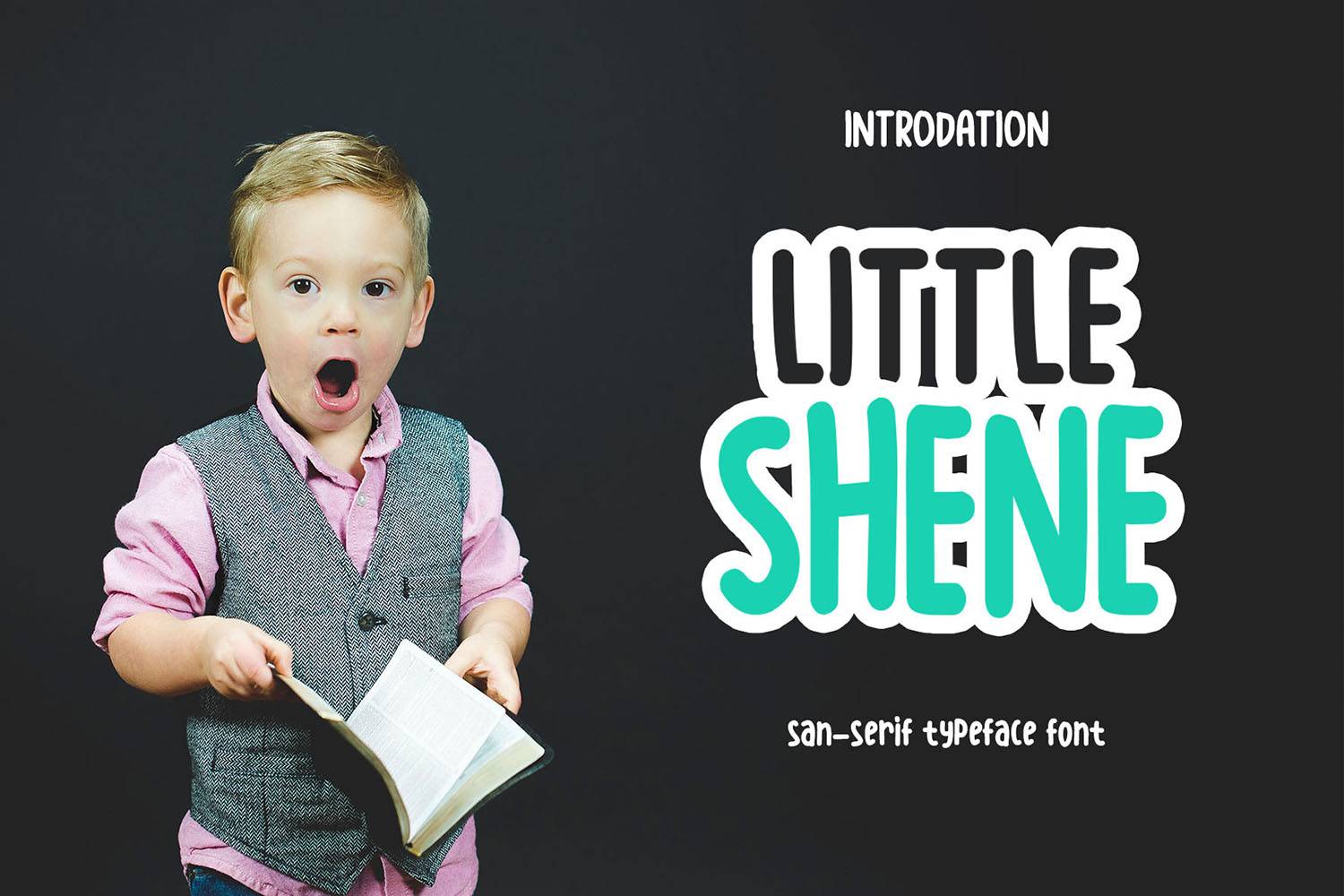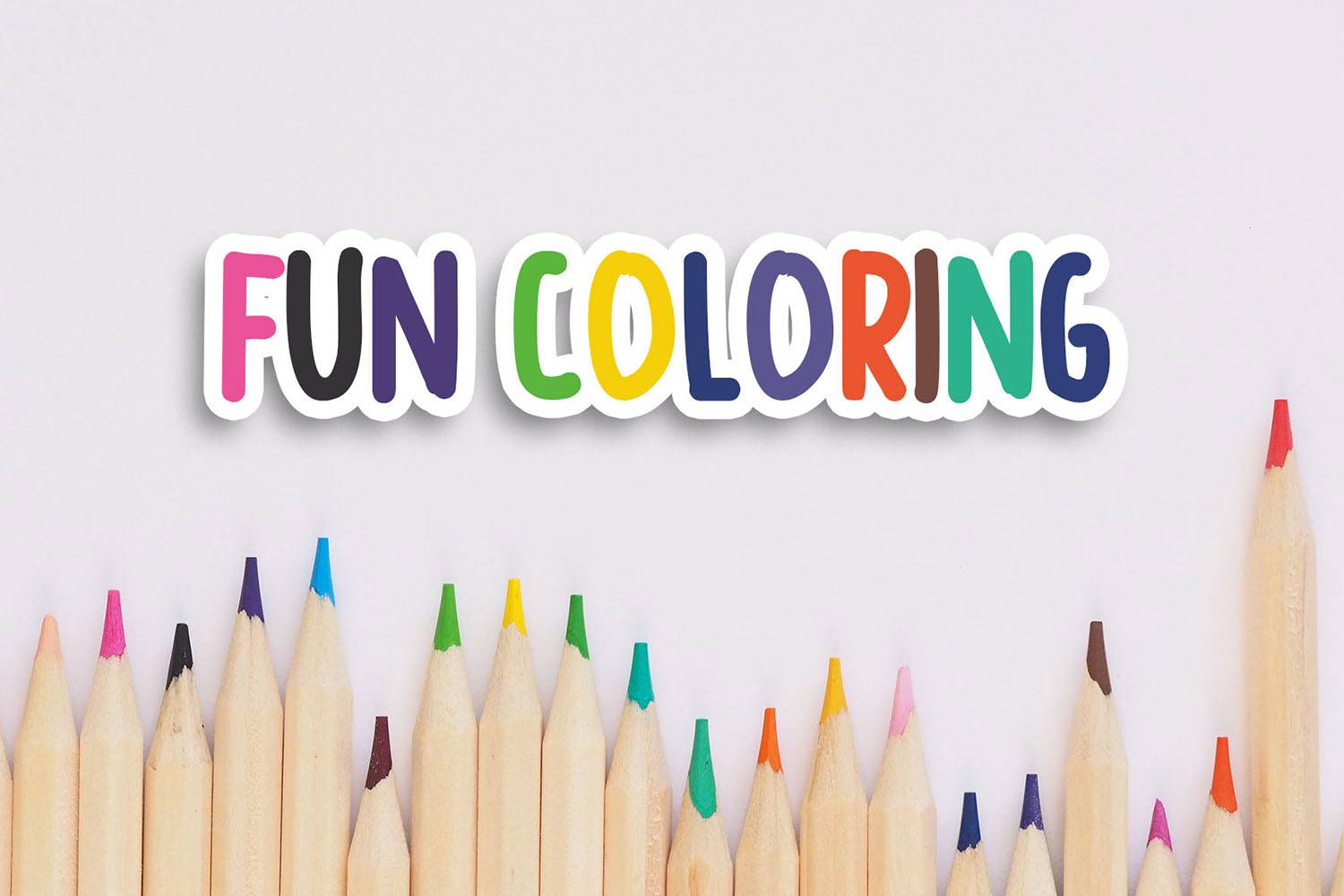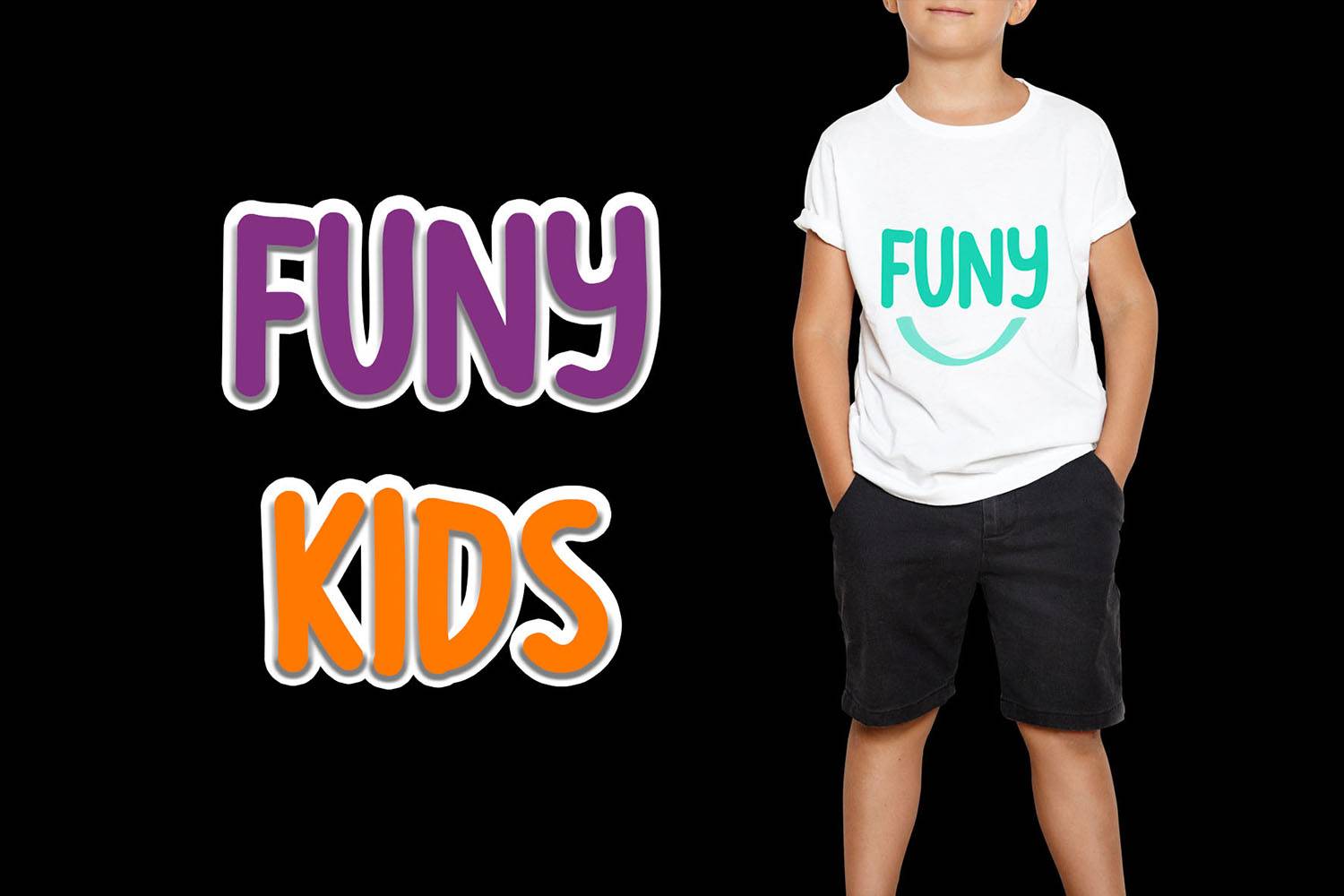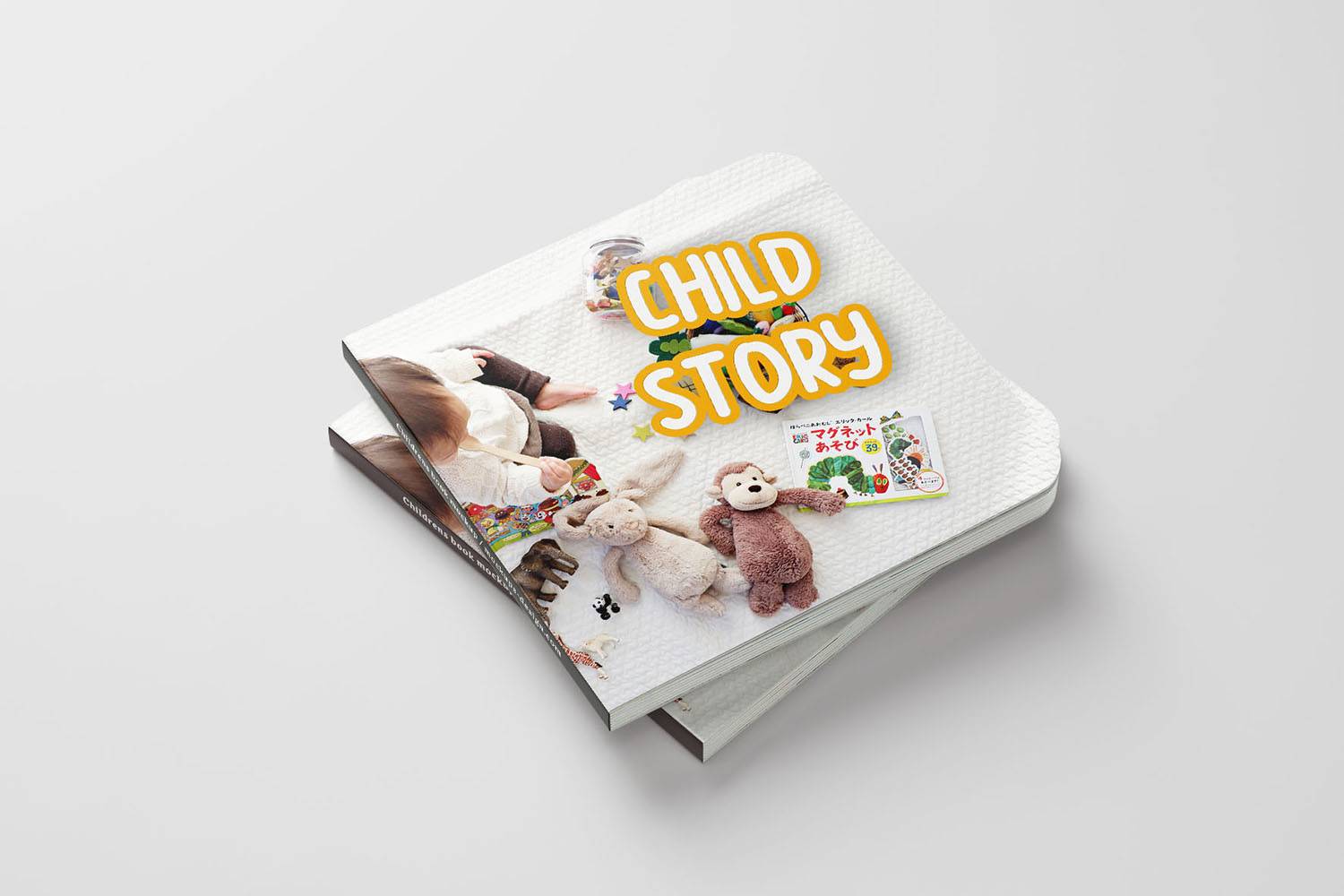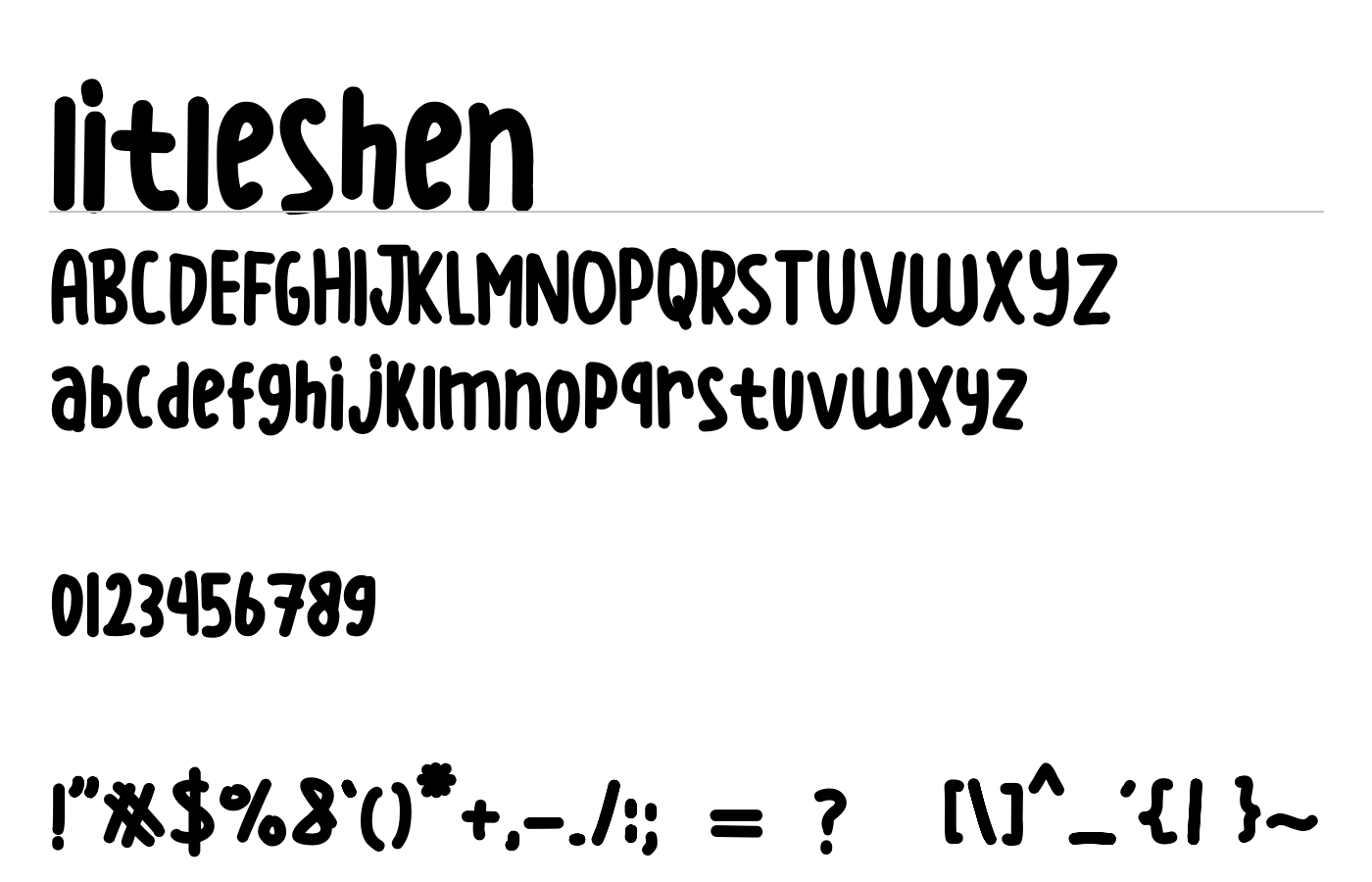
Littlesine is a playful, rounded sans serif font with a casual handwritten feel, featuring a friendly mix of slightly irregular shapes and smooth strokes. Its medium weight and moderate spacing make it highly legible while maintaining a warm, approachable vibe, perfect for youthful branding, invitations, or fun editorial use. This font works well where a charming, informal tone is desired, adding personality without sacrificing clarity.
Littlesine Font
About Littlesine Font